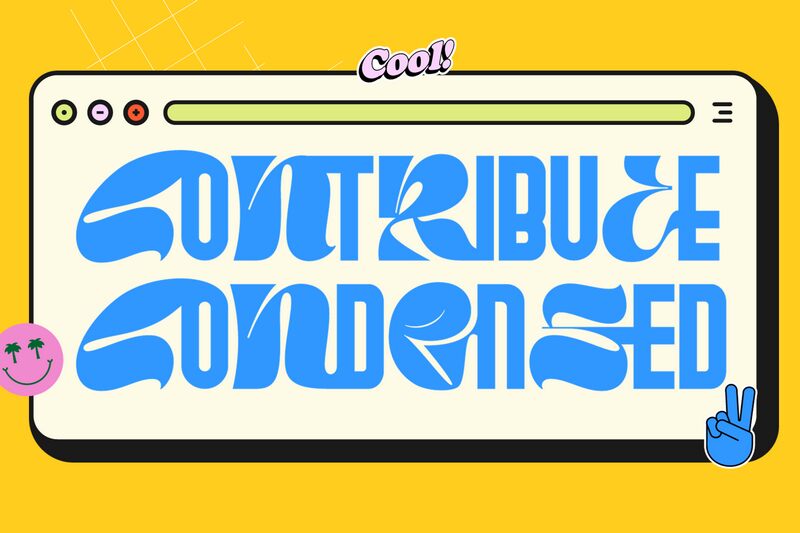
Contribute Condensed font family by 177Studio includes 2 font styles that are absolutely breathtaking with clever and structured shapes that merge into a spectacular free font family. The designer stood by use of the fancy styles category with swirling characters that preserve their simplicity. The dynamic flow is the creative ingredient that makes this font unique and highly attractive.
Write your titles for magazines, articles, or books with this font family. Posters reserved for works of art, music, and films are splendidly emphasized with a Contribute Condensed script. The font family is an ideal choice for different design projects with its original multi-purpose style. Although its style is unparalleled, its practicality makes it distinguished.